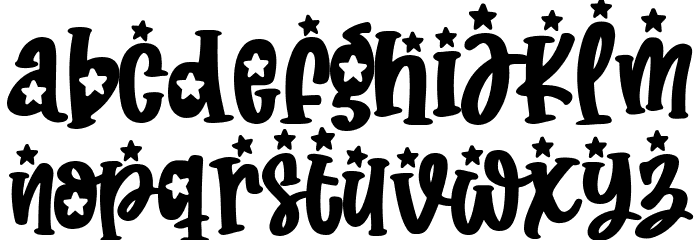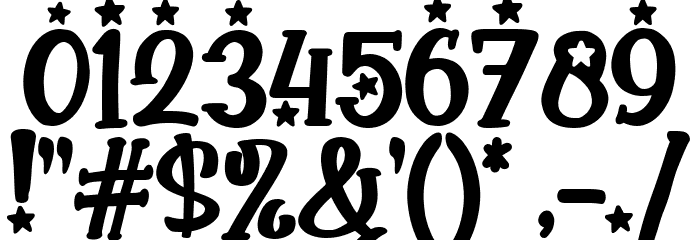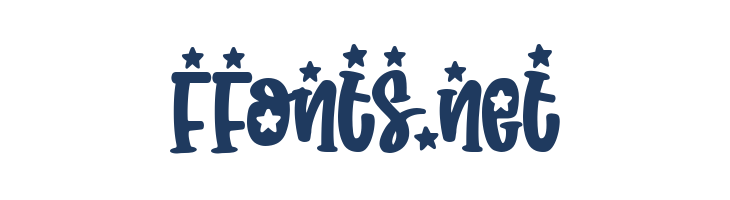
Glowing Star Cute Font
This playful and whimsical font features bold, rounded characters adorned with small stars, giving it a fun and magical appearance. The letters are slightly irregular, adding to the charm and uniqueness of the style. The uppercase and lowercase letters maintain a consistent design, with the stars strategically placed to enhance the visual appeal without overwhelming the text. Numbers and special characters follow the same decorative theme, ensuring a cohesive look across all elements. This font is ideal for projects that require a touch of creativity and imagination.
A playful, star-adorned font with bold, rounded characters.
- Font: Glowing Star Cute
- Proposed Projects: Ideal for children's books, party invitations, playful branding, and creative posters.